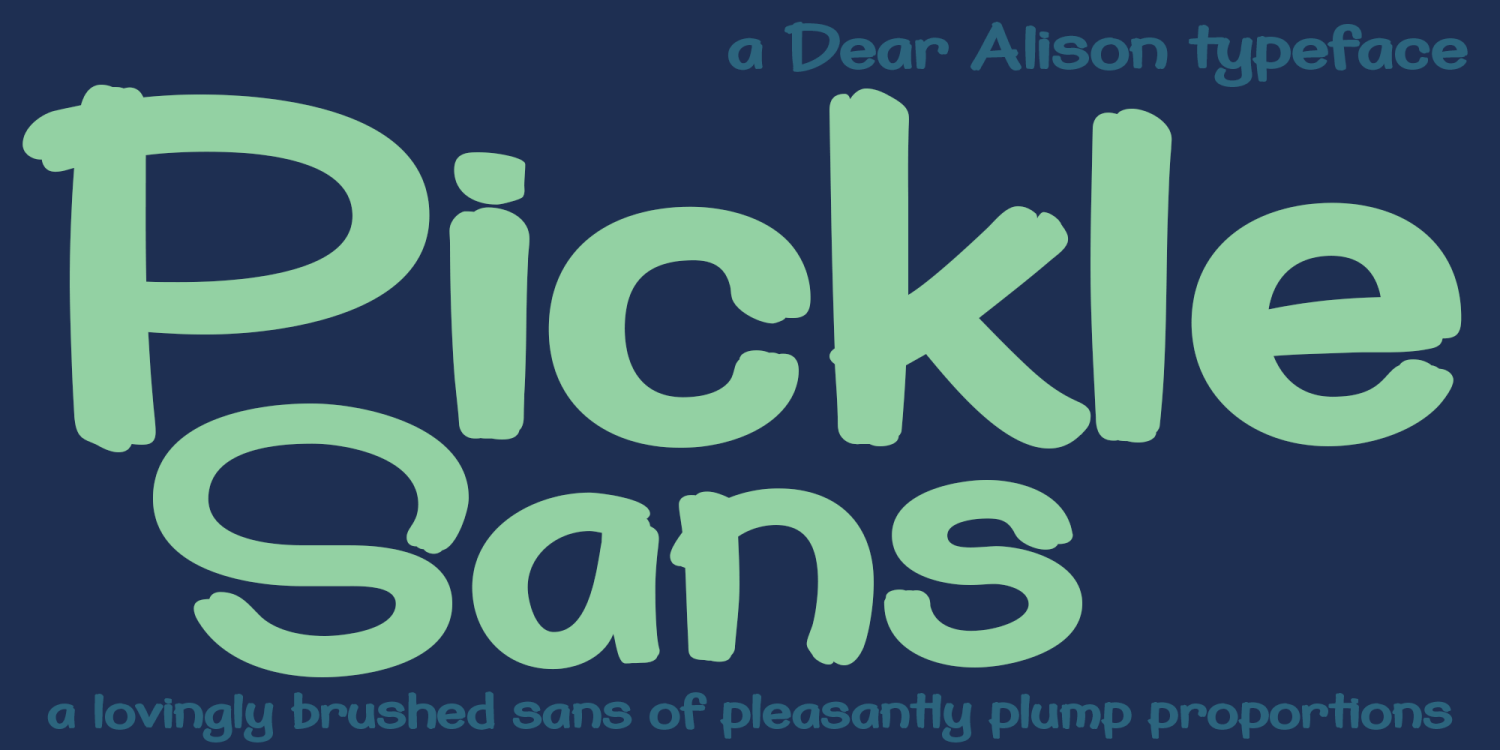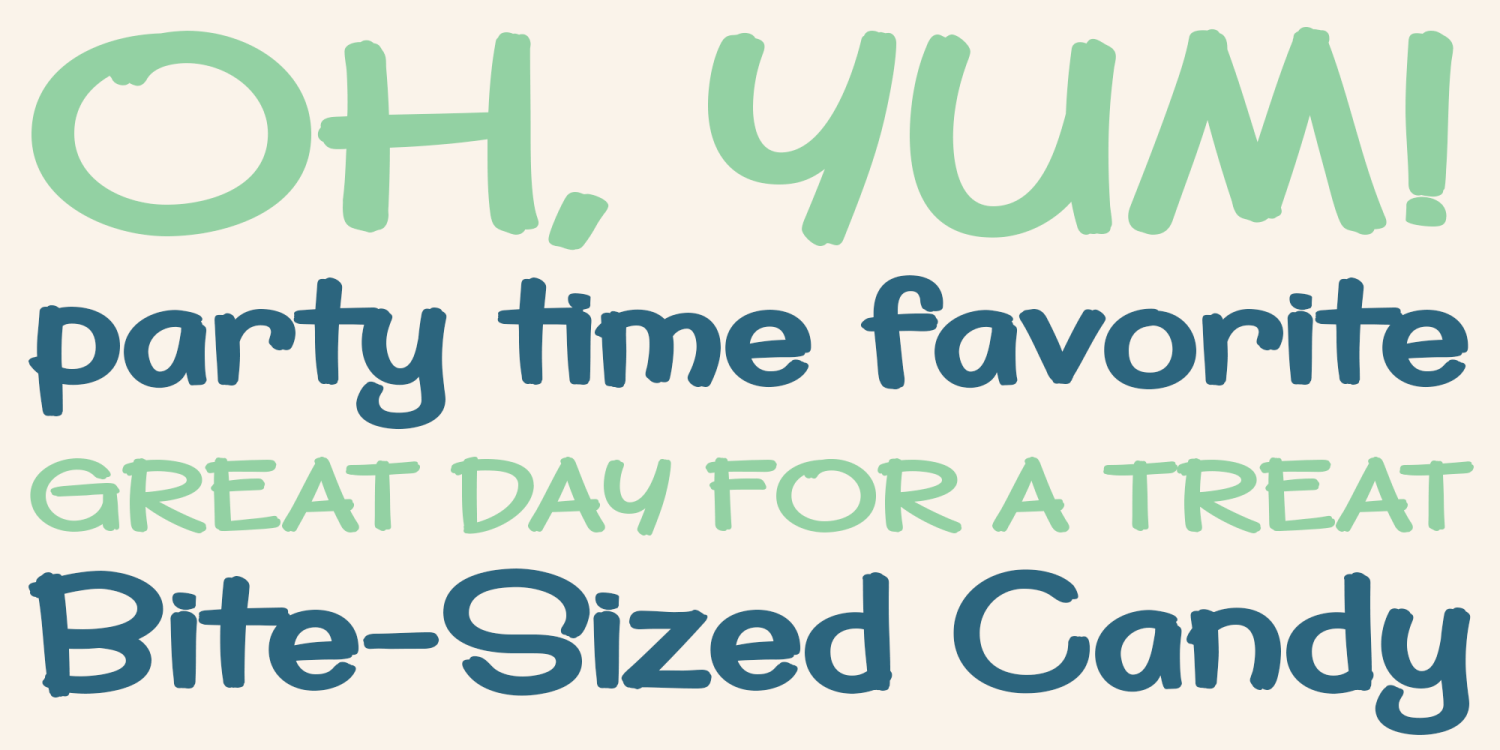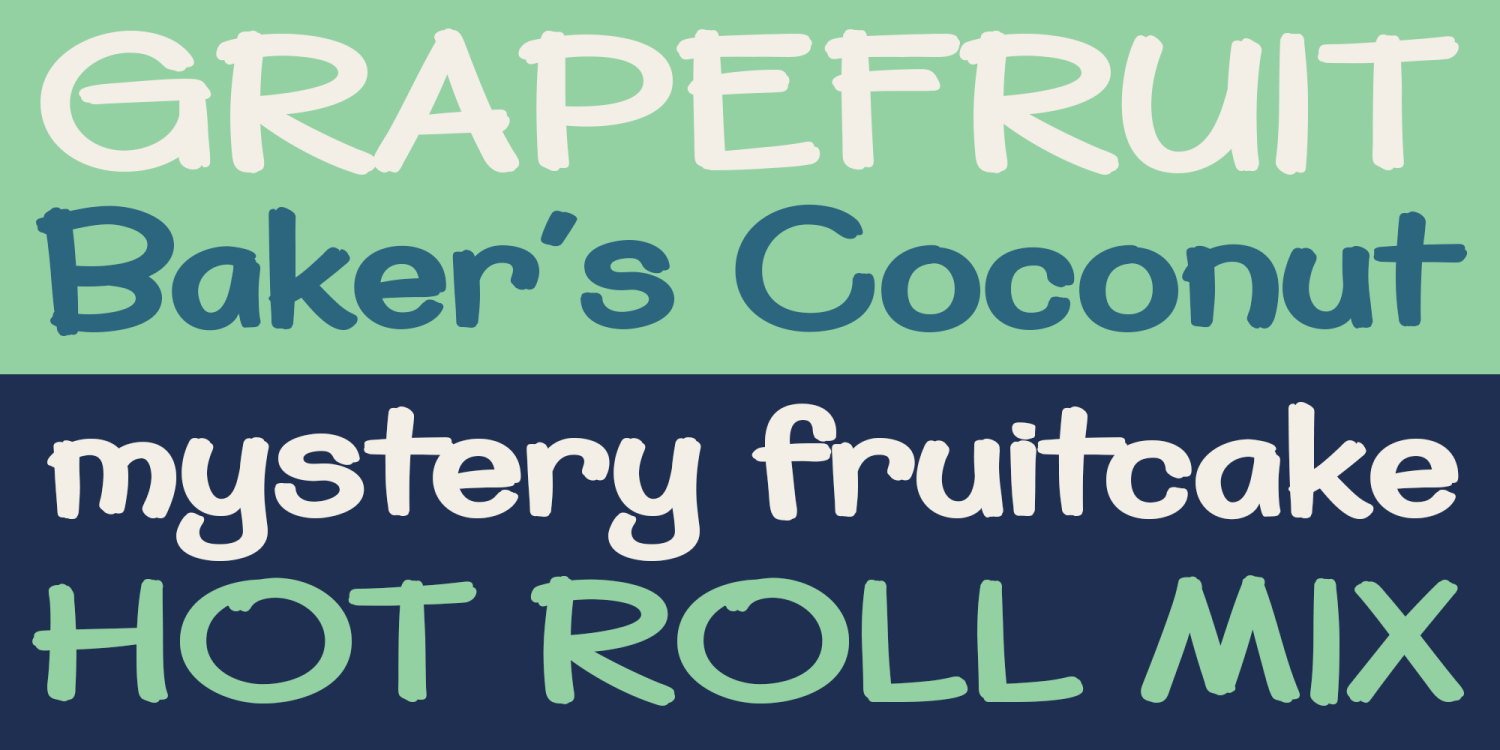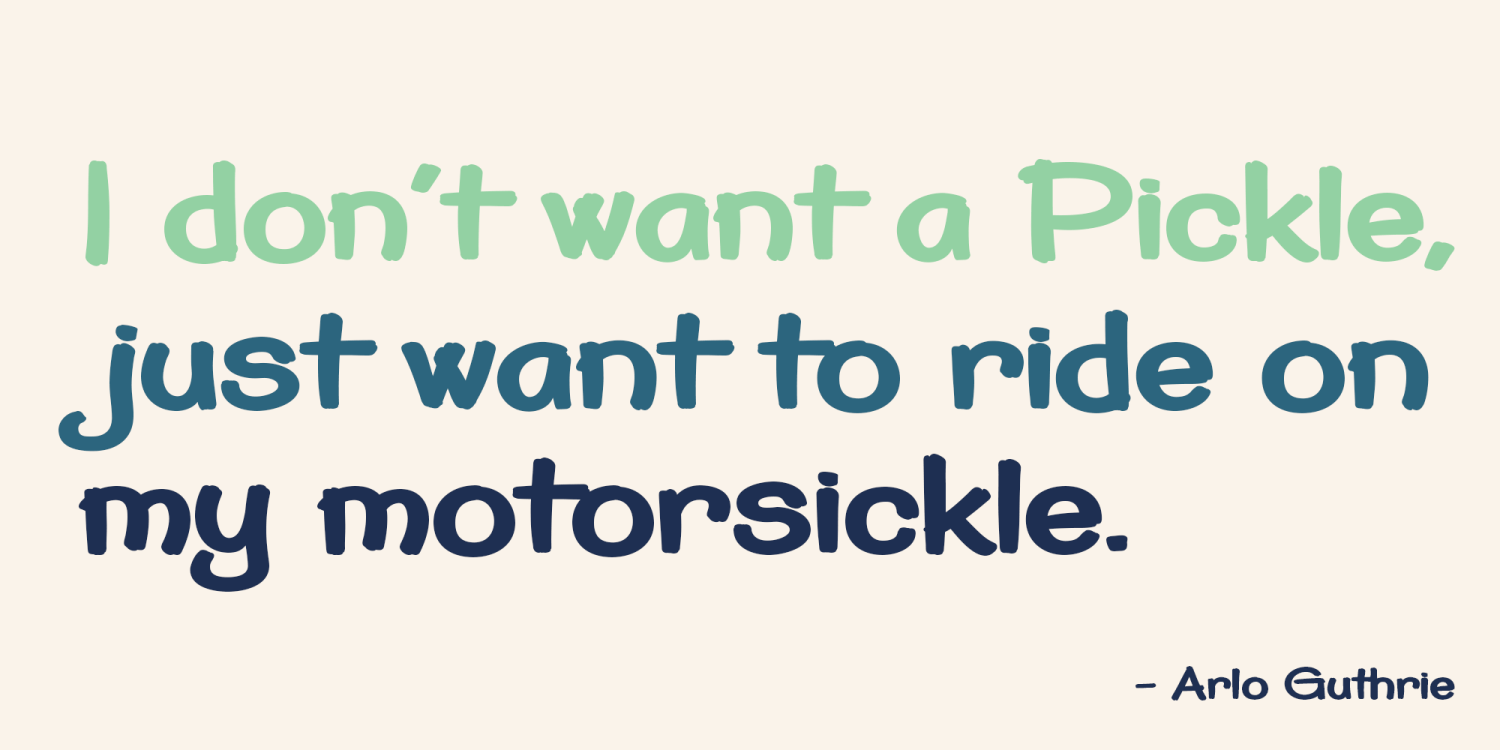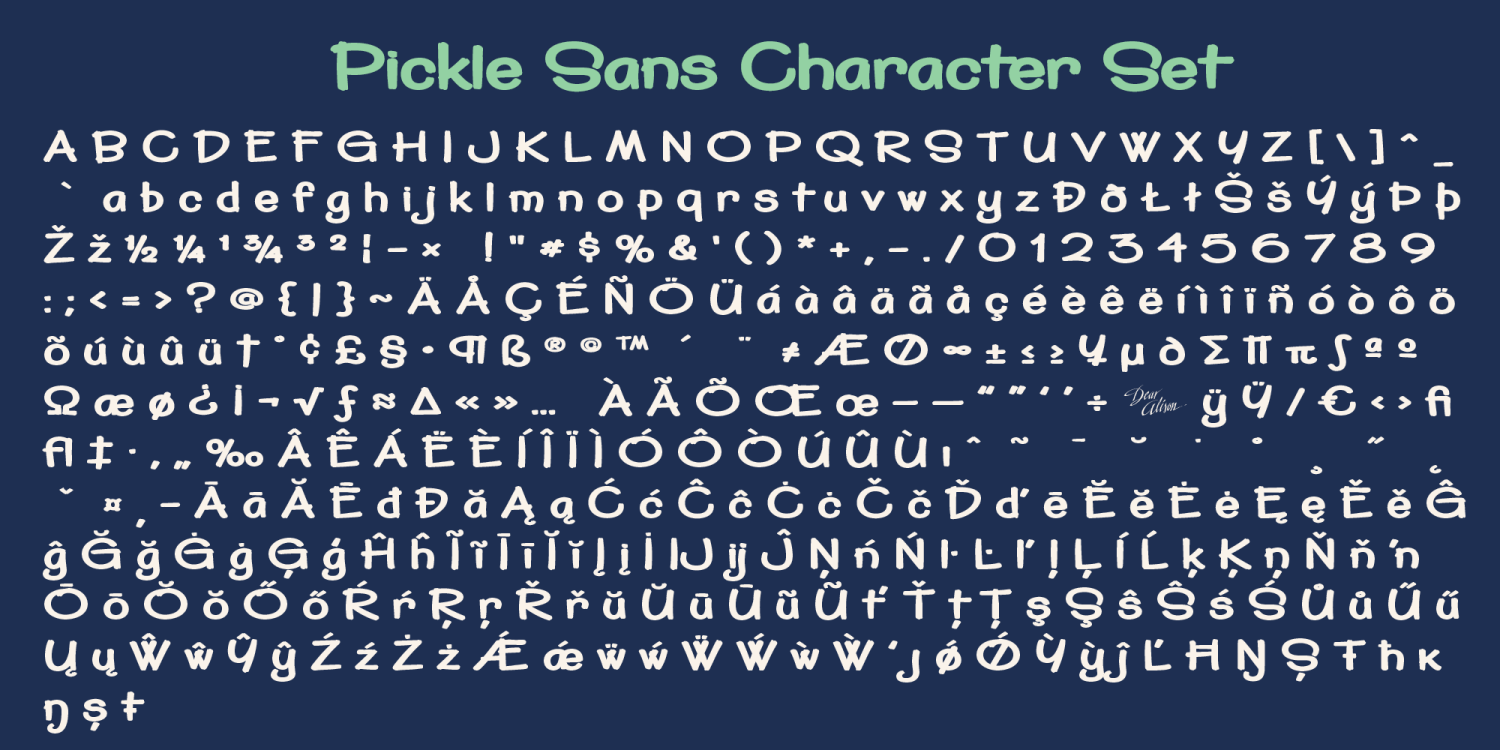
Pickle Sans
Font Family by Dear Alison
Discover why Pickle Sans is the font the makers of Comic Sans don't want you to know about! Why not convey a casual professionalism that is a step above the competition? Pickle Sans is a bold, fun, attention getter of a font that is a cleanly readable brush script with a slightly imperfect hand. It speaks to children, retro enthusiasts, and too many others to list. If you've ever had anyone talk to you like a child, you'll understand how the right message can come out wrong. Avoid giving off that message to your audience and approach them in a casual, mature, yet fun manner. Respect your audience, whether younger or older, and convey your message in Pickle Sans. Try it and buy it today!